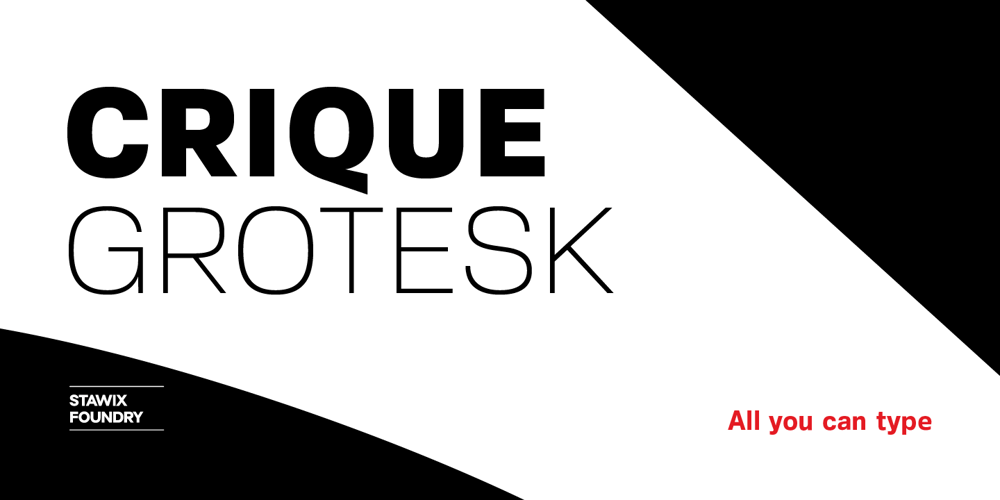
Crique Grotesk Font Family was designed by published by Stawix. Crique Grotesk contains 31 styles and family package options. This contemporary typeface is inspired by the neo-humanist and geometric industrial tones presented in late 2000s typefaces. The font family is also composed of the normal width and display width in order to support different applications in delicate designs.